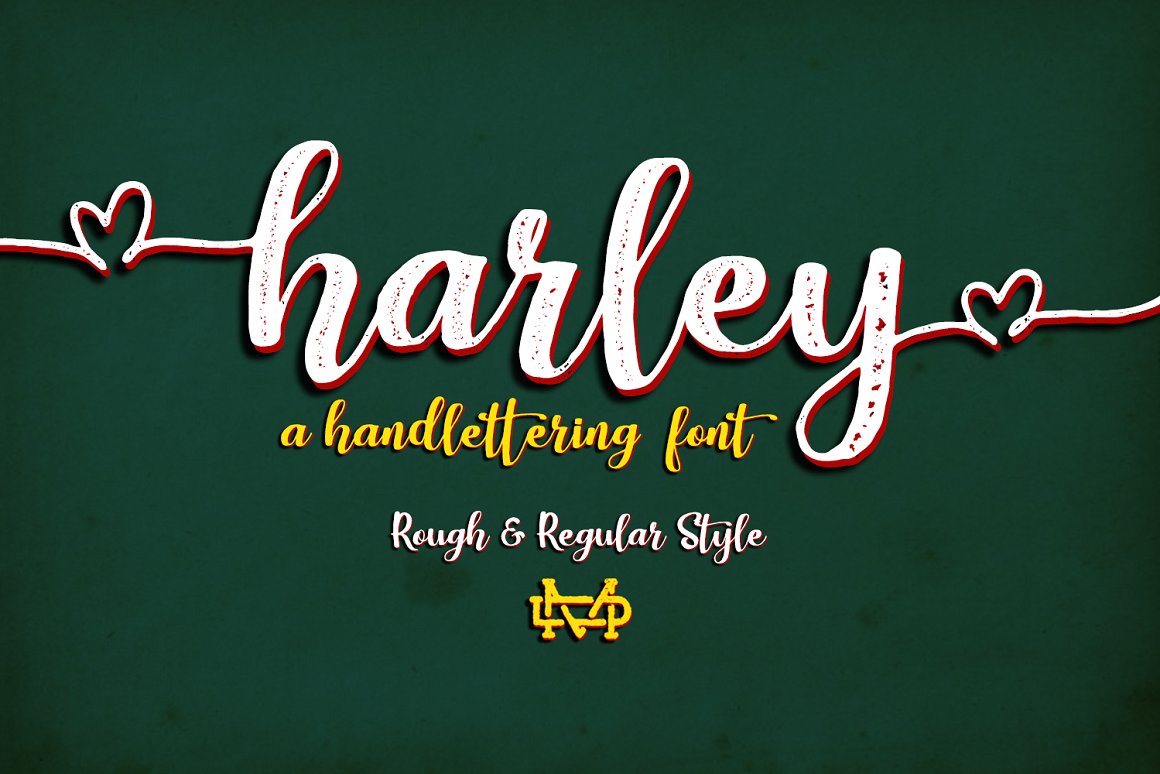
Harley Script Font
Really excited to introduce Harley Script is a handlettering typeface! Harley perfect for all your designs project, invitation and more.